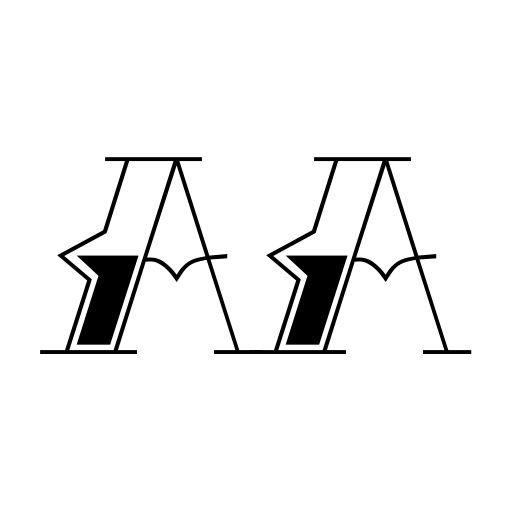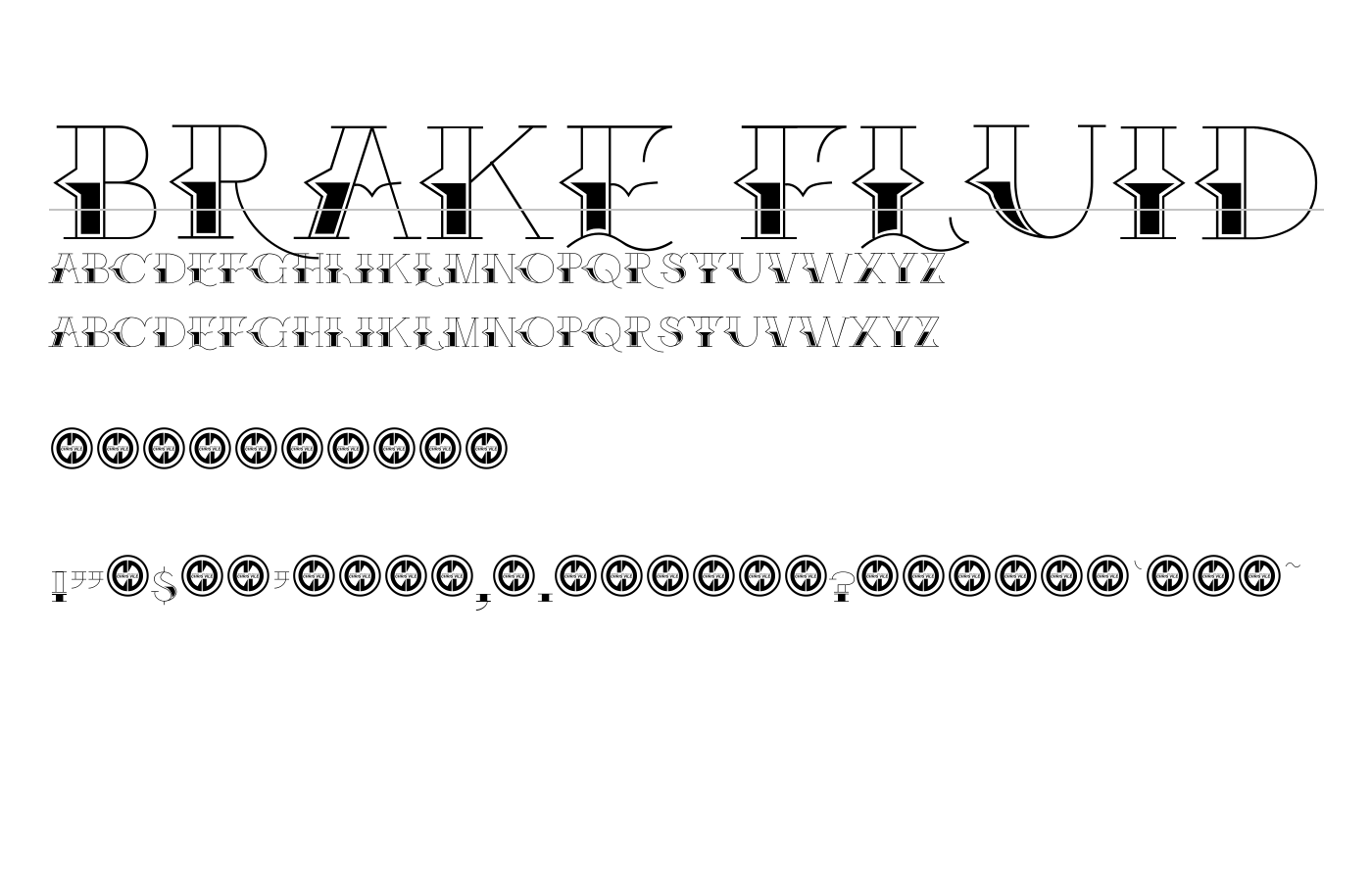
Brake Fluid is a decorative serif typeface that combines classic elegance with a unique, angular twist. Its high contrast strokes and sharp, bracketed serifs create a bold, sophisticated look with artistic flair, making it ideal for eye-catching logos, fashion branding, and stylish editorial use where a touch of refinement and creativity is desired. This font is perfect for designers seeking a distinctive serif with a modern edge that stands out in luxury and creative contexts.
Brake Fluid Font
About Brake Fluid Font
| Font family | Brake Fluid Font |
| Designer | Chris Vile |